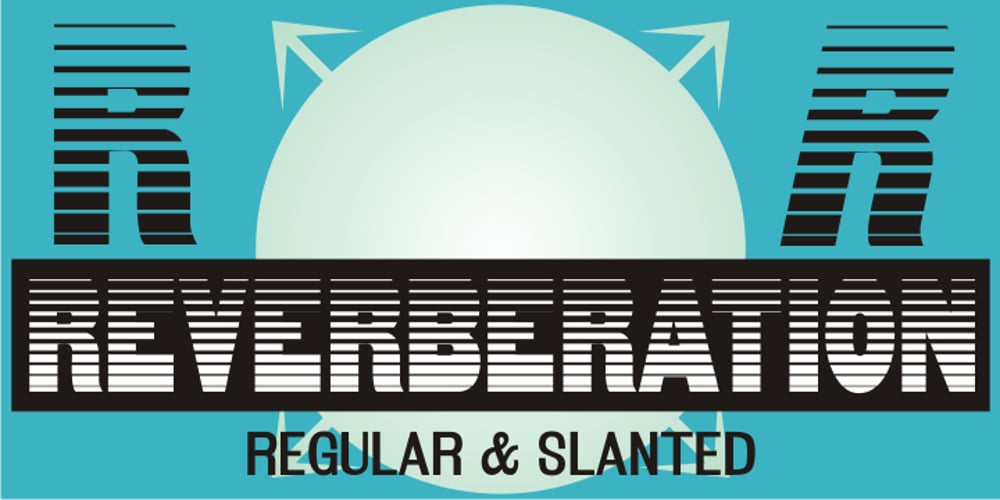
Reverberation JNL Font Family was designed by Jeff Levine and published by Jeff Levine. Reverberation JNL contains 2 styles and family package options. Reverberation JNL and its slanted counterpart are a throwback to the 1970s and 1980s when fonts featuring horizontal white lines of varying widths implied movement or activity.